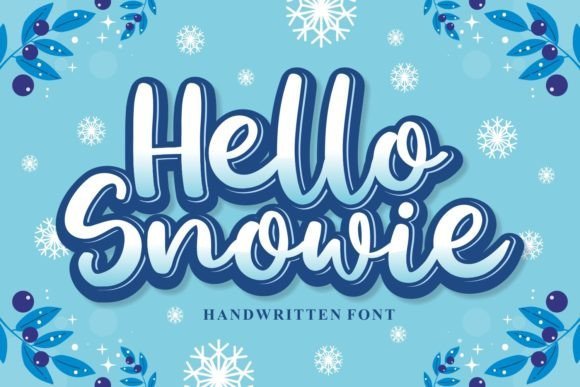
Cozying Up with Handwritten Charm
Have you ever sat by the fireplace, sipping hot cocoa, and felt inspired to create something magical? Perhaps it’s a handmade card for a loved one or a whimsical winter scene for your social media feed. Whatever sparks your creativity, it’s moments like these that remind us of the beauty in handwritten charm.
For designers and crafty enthusiasts, Hello Snowie Font is a treasure trove of inspiration. This beautifully flowing handwritten font is perfect for adding a touch of winter wonder to your projects. With its playful, cursive strokes, Hello Snowie Font is not just limited to cozy winter themes – it’s versatile enough to add whimsy to any design that needs a personal touch.
Hello Snowie Font Key Features
- Font Style: A playful, handwritten font with a whimsical feel, perfect for creative projects and designs.
- Unique Characteristics: Features unique ligatures, swashes, and flourishes that add a touch of personality to text.
Hello Snowie Font Review
Hello Snowie Font is a charming and whimsical font that’s perfect for adding a touch of winter magic to your designs ✨. Its unique, handwritten feel makes it ideal for creating invitations, greeting cards, and other festive projects.
The font’s irregular shapes and flowing lines give it a playful, handwritten quality that’s hard to resist ✨. The character set includes a wide range of punctuation and special characters, making it easy to use in a variety of contexts.
While Hello Snowie Font is a great choice for many projects, there are a few limitations to be aware of ⚠️:
- Limited language support: The font only includes characters for the Latin alphabet, which may limit its use for projects requiring non-Latin languages.
- No bold or italic weights: The font is available in a single regular weight, which may not provide enough flexibility for designers who need to create bold or italic text.
- Not ideal for body text: The font’s playful, handwritten feel may not be suitable for large blocks of body text, where legibility and readability are crucial.
Overall, Hello Snowie Font is a charming and versatile font that’s perfect for adding a touch of whimsy to your designs ✨. While it has some limitations, its unique feel and wide range of character options make it a great choice for many projects.
Hello Snowie Font is ideal for:
- Winter-themed designs and marketing materials.
- Fun and playful social media graphics.
To get the most out of Hello Snowie Font, try:
- Combining it with bold and colorful graphics.
- Using it for headings and titles.
- Experimenting with different font sizes and styles.